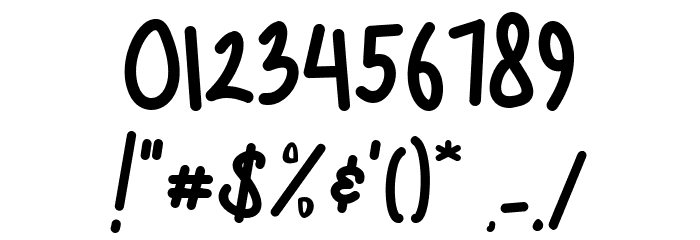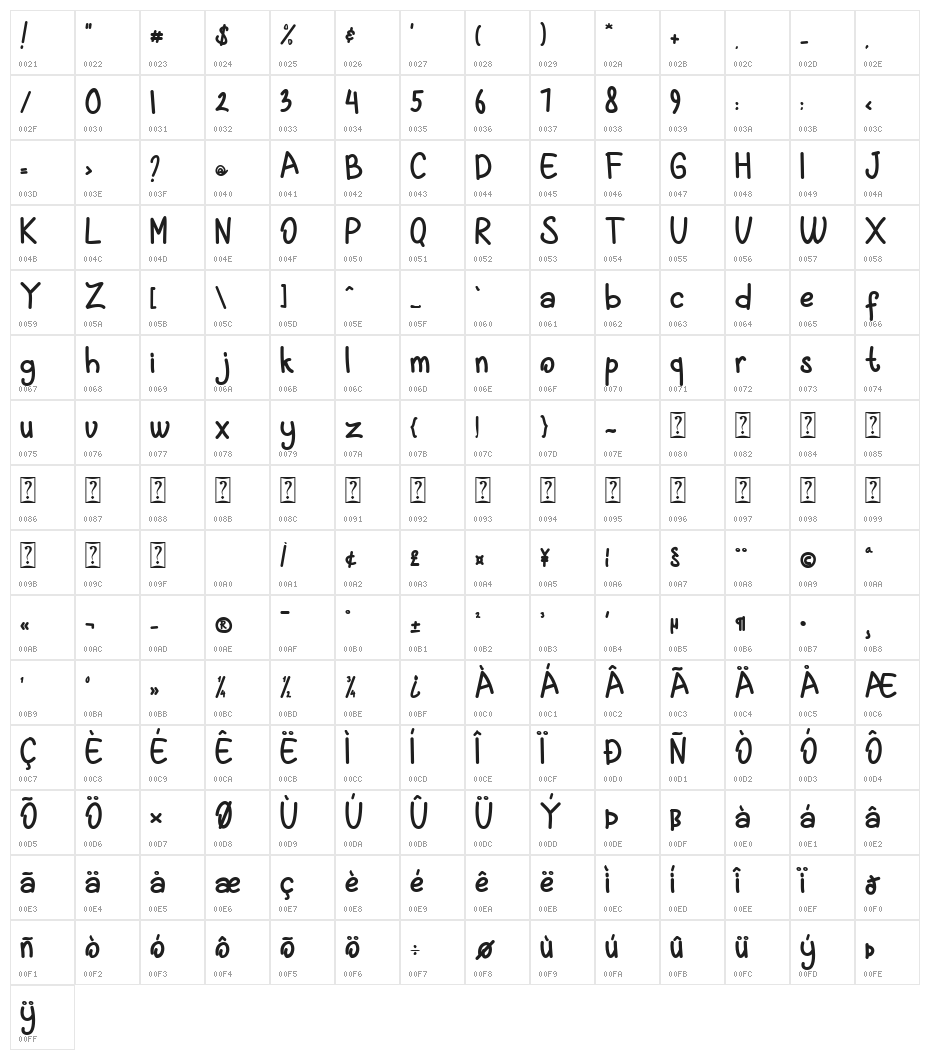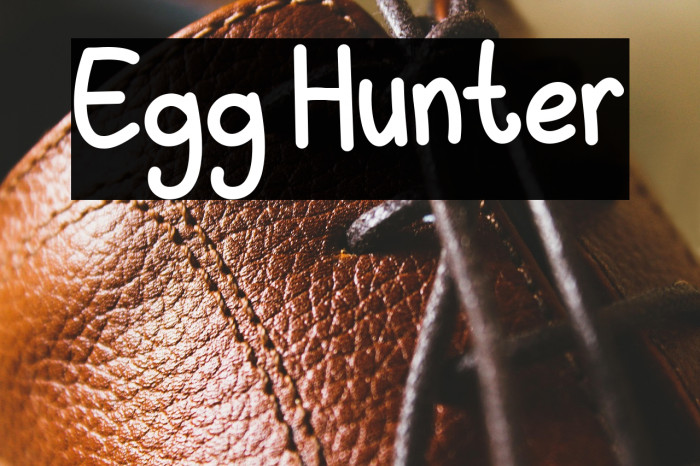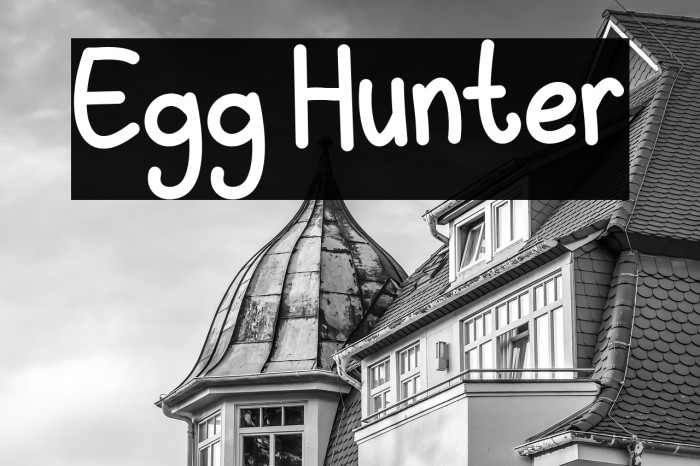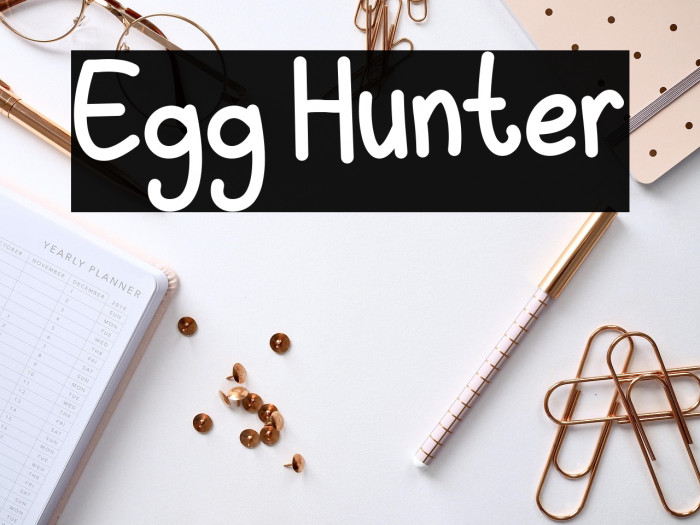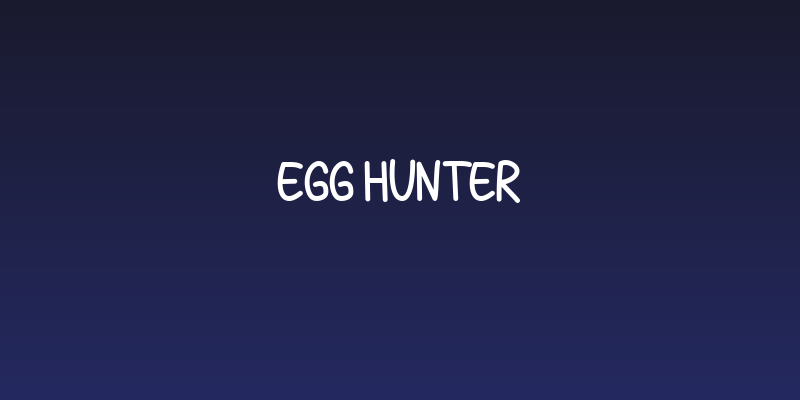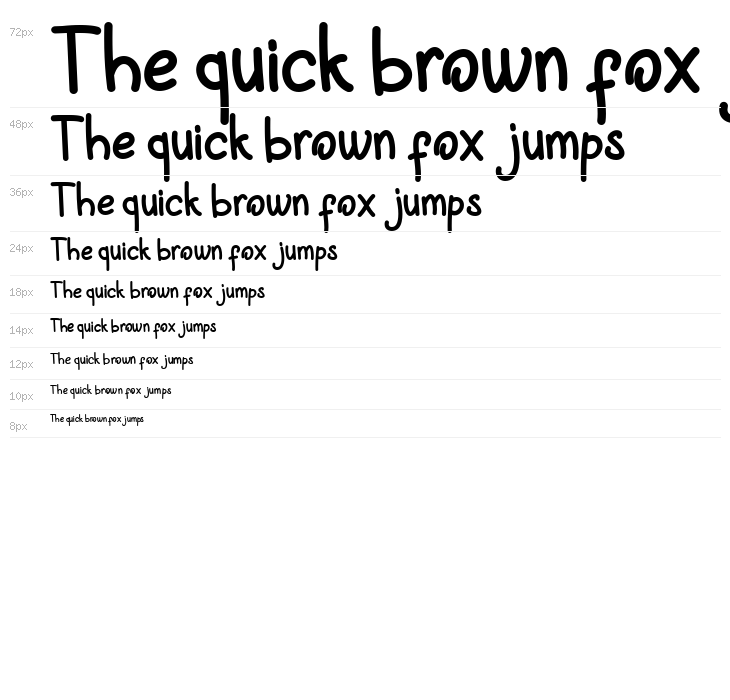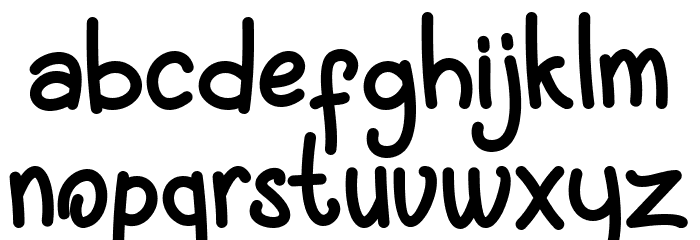
Egg Hunter Font
Egg Hunter Description
This playful and whimsical font features a handwritten style with a casual and friendly appearance. The characters are rounded and slightly irregular, giving it a charming, informal look. The uppercase and lowercase letters maintain a consistent flow, while the numerals and special characters complement the overall style. The font's strokes are moderately thick, providing a balanced weight that enhances readability while maintaining its playful character.
| Proposed Projects | Ideal for children's books, greeting cards, playful branding, and casual invitations. |